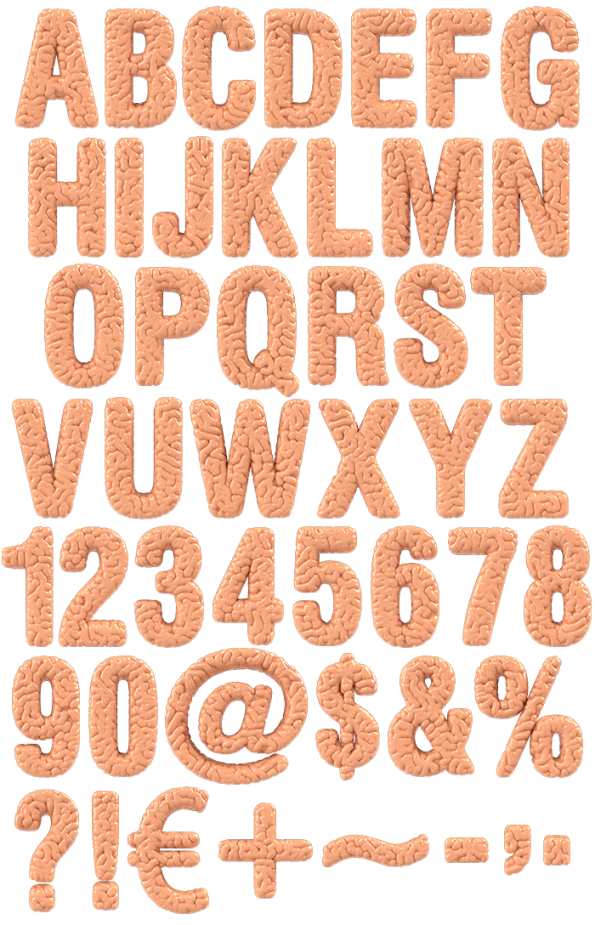
Brain Font. Get Smart, Cool And Productive With Hilarious Brain Typeface
Brain Font is a kind reminder about the necessity of using your brain while doing your design or whatever. This unique typeface looks really smart and our advice is to rely on this handmade font. Use your brain and trust it!
My Brain Font Says Stop
Brain Font is an organ that serves as the center of the nervous system in all vertebrate and most invertebrate animals—only a few invertebrates such as sponges, jellyfish, adult sea squirts and starfish do not have a brain, even if diffuse neural tissue is present. It is located in the head, usually close to the primary sensory organs for such senses as vision, hearing, balance, taste, and smell. Sounds interesting, doesn’t it? These facts became the basis for our idea to create an unusual font from human typography branch. The task was difficult, no doubt, because it’s very hard to design such a creative typeface without making it disgusting. However, we managed to meet the challenge. The hilarious font looks very good! And fresh… And tasty… Oh! No questions, please!
Brain Font is a set of high-resolution photos. The funny typeface contains letters, symbols and numbers. Every letter has a transparent background and is ready for placement in your design.
How To Be Clever With Handmade Font
You can use this handmade font as a creepy typeface for a zombie TV-show like “Walking Dead” and get famous! Or you can try the cool font on medicine projects and Halloween designs. Moreover, there is the third option for Brain Font. You can create a humorous postcard for someone with this creative typeface to tell him or her a very important thing… Well, we aren’t goint to say it aloud. But your guess is correct.
This font set contains all the elements besides letters, such as figures, punctuation marks.
All letters and glyphs that comprises this font you can see on the preview.